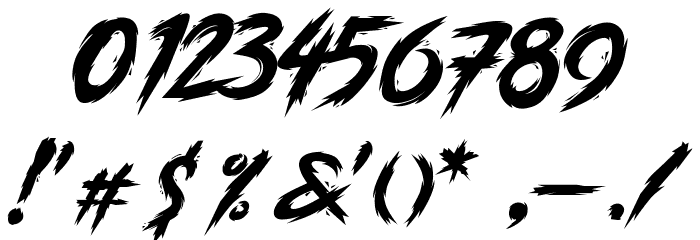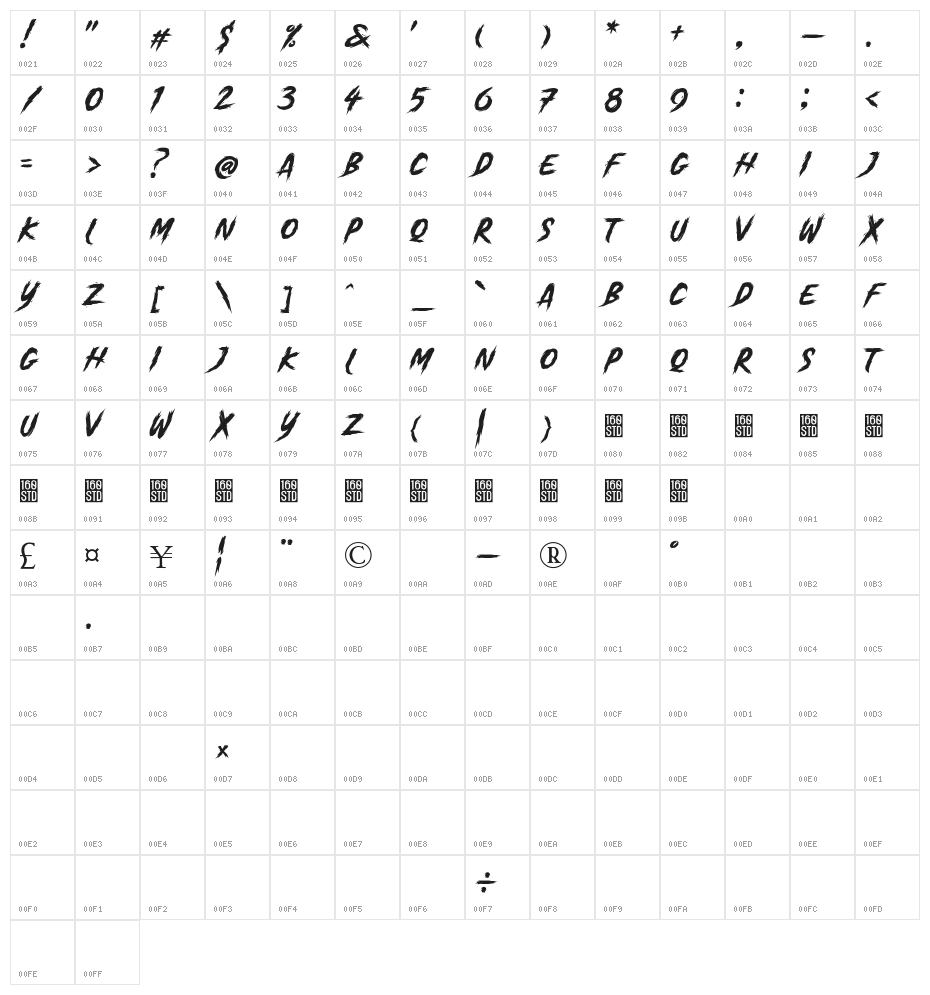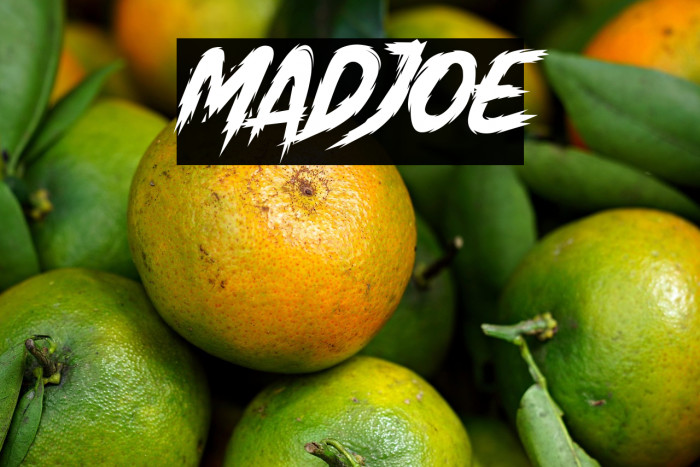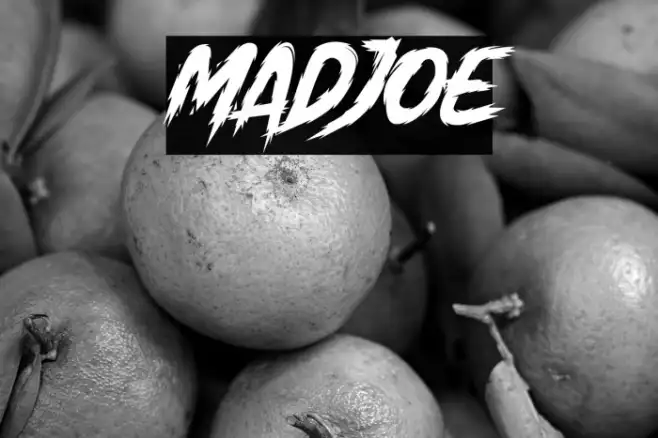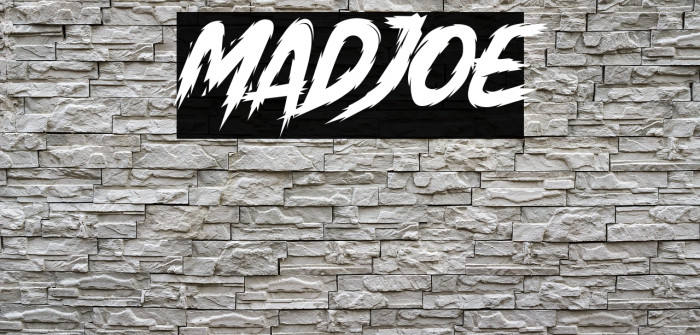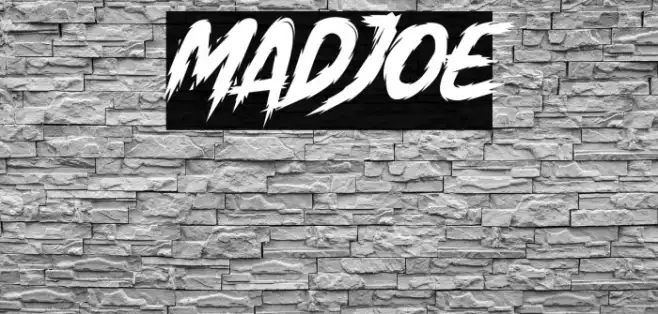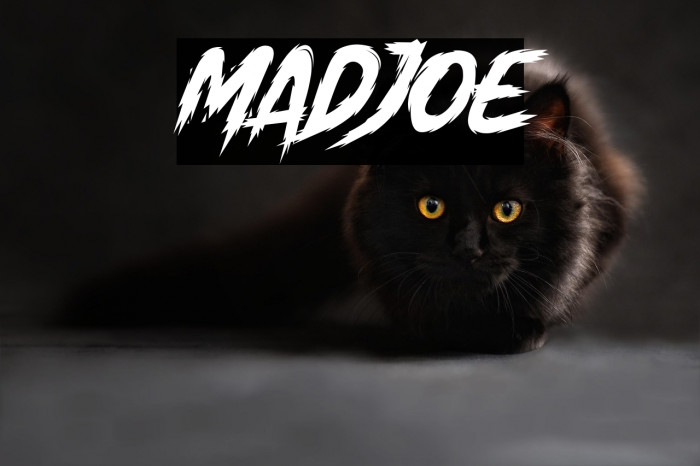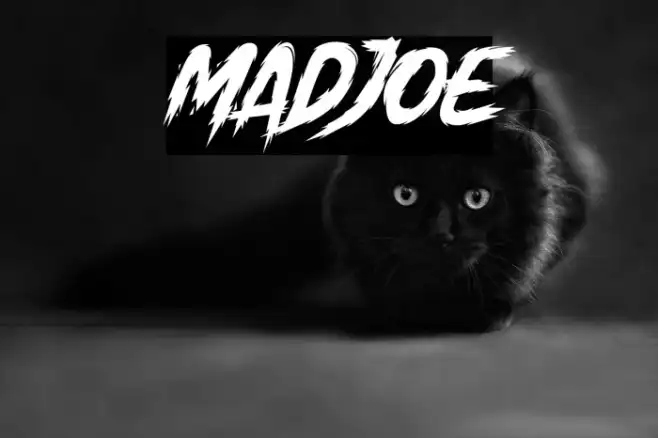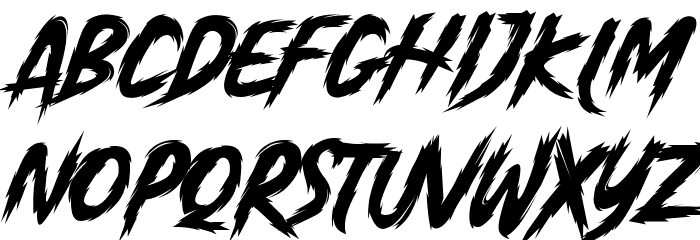
Madjoe Font
Madjoe Description
This font features a bold and aggressive style with sharp, jagged edges that give it a dynamic and energetic appearance. The strokes are thick and irregular, creating a sense of movement and intensity. The characters are slightly slanted, adding to the font's dynamic feel. This style is reminiscent of graffiti or street art, making it ideal for projects that require a bold and rebellious aesthetic. The font maintains a consistent weight throughout, with high contrast between the thick and thin strokes, enhancing its dramatic impact.
| Proposed Projects | Ideal for music album covers, extreme sports branding, streetwear fashion designs, and event posters. |